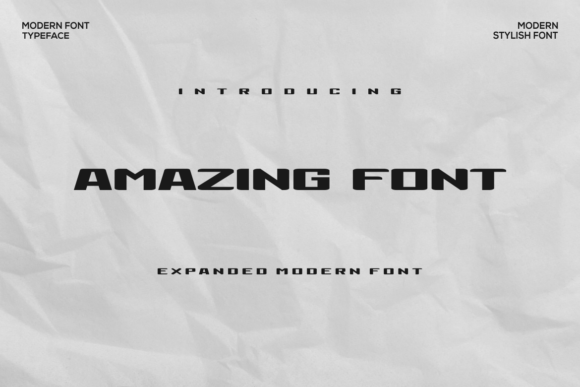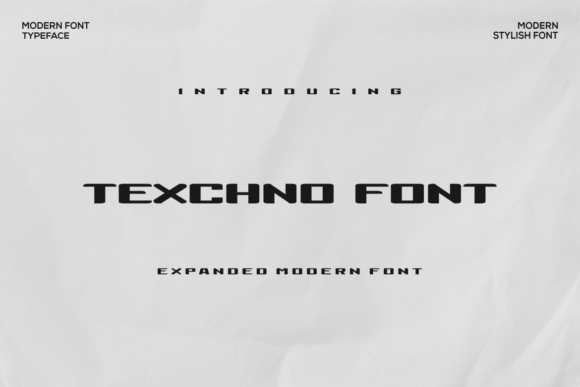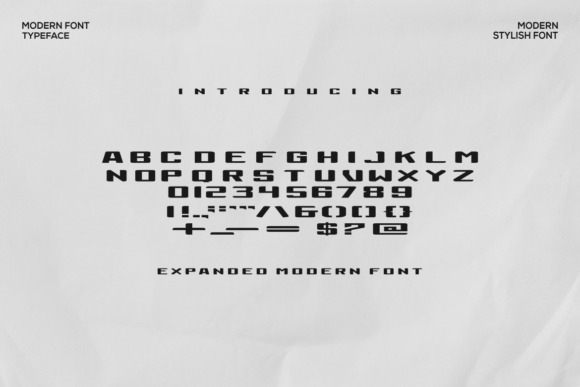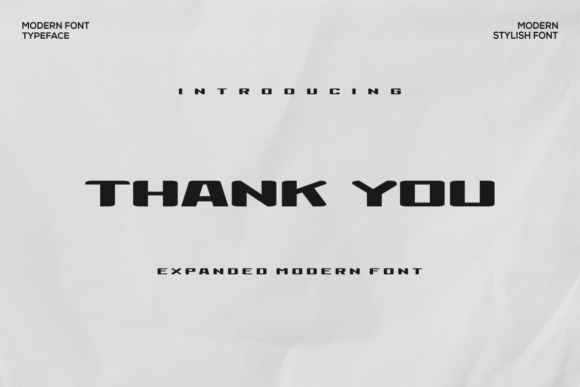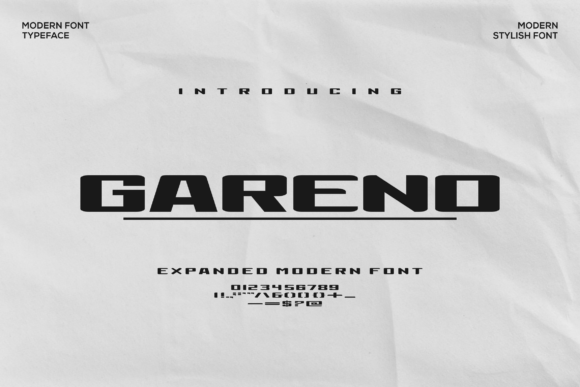
Introducing Gareno Font: The Modern Display Font for Bold Designs
In the world of design, fonts play a crucial role in conveying messages, expressing emotions, and creating a lasting impression. For designers and crafters looking for a bold and authentic display font, we are excited to present Gareno Font – a modern font designed to elevate your branding projects to the next level.
What is Gareno Font?
Gareno Font is a carefully crafted display font that exudes confidence and style. Its bold and authentic design makes it perfect for a wide range of applications, from logos and t-shirt printing to creative products and more. With its modern aesthetic, Gareno Font is ideal for designers and crafters who want to create extraordinary designs that stand out in a variety of contexts.
Key Features of Gareno Font
• Bold and Authentic Design: Gareno Font boasts a bold and authentic design that commands attention and makes a lasting impression.
• Versatile: This modern font is suitable for a variety of design projects, including logos, t-shirt printing, creative products, and more.
• Easy to Read: Despite its bold design, Gareno Font remains easy to read, making it perfect for headlines, titles, and short texts.
• Highly Customizable: With Gareno Font, you can experiment with different colors, sizes, and styles to create unique designs that reflect your brand’s personality.
Why Choose Gareno Font?
With so many fonts available, why should you choose Gareno Font for your design projects? Here are a few compelling reasons:
• Unique Design: Gareno Font offers a fresh and unique design that sets it apart from other fonts.
Use Cases for Gareno Font
Gareno Font is an incredibly versatile font that can be used in a variety of design projects, including:
• Logo Design: Create a bold and memorable logo that represents your brand’s values and personality.
• T-Shirt Printing: Design eye-catching t-shirts that make a statement with Gareno Font.
• Creative Products: Use Gareno Font to create unique and stylish designs for creative products, such as posters, flyers, and brochures.
• Branding Projects: Elevate your branding projects with Gareno Font’s modern and authentic design.
Tips for Using Gareno Font
To get the most out of Gareno Font, here are some tips to keep in mind:
• Experiment with Colors: Try out different colors to find the perfect combination that matches your brand’s style.
• Play with Sizes: Experiment with different font sizes to create visual hierarchy and emphasis.
• Pair with Other Fonts: Pair Gareno Font with other fonts to create a unique and stylish design.
Font Name Gareno Font
In conclusion, Gareno Font is a modern display font that offers a bold and authentic design perfect for designers and crafters looking to create extraordinary designs. With its versatile design, ease of use, and exceptional support, Gareno Font is an excellent choice for a wide range of design projects. Try Gareno Font today and take your designs to the next level!